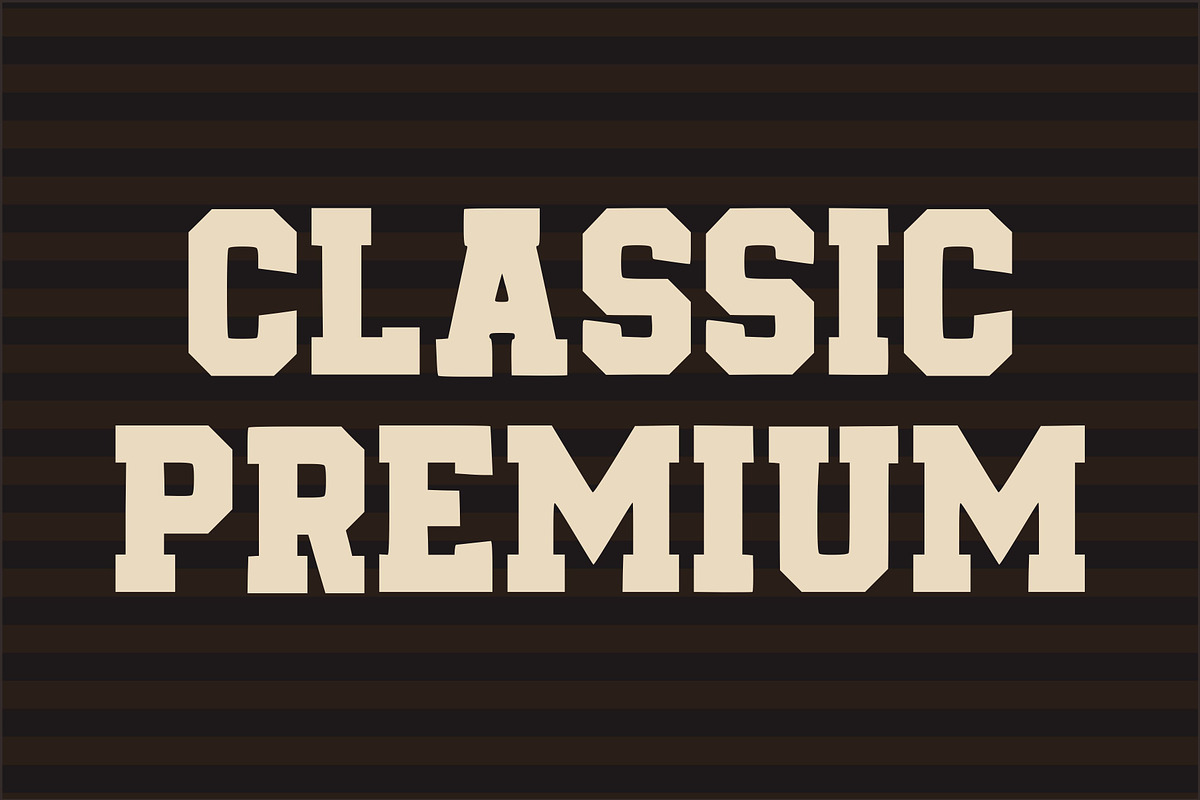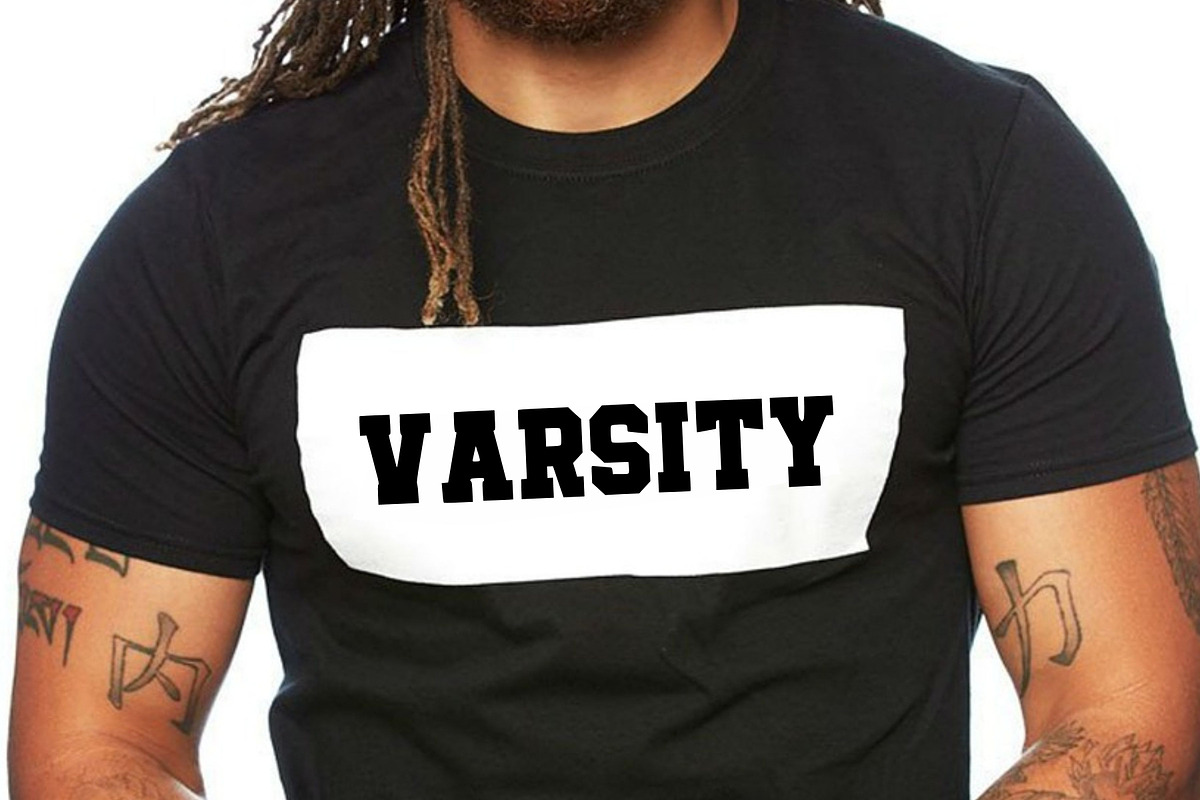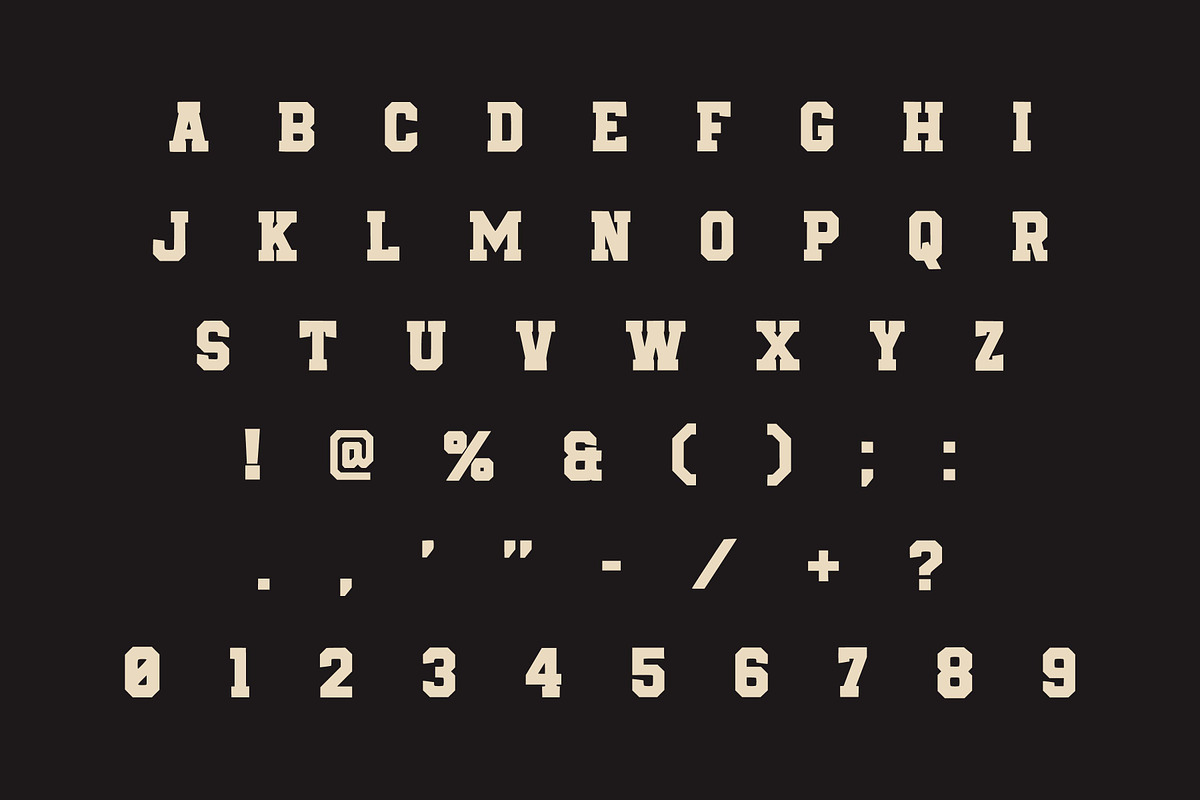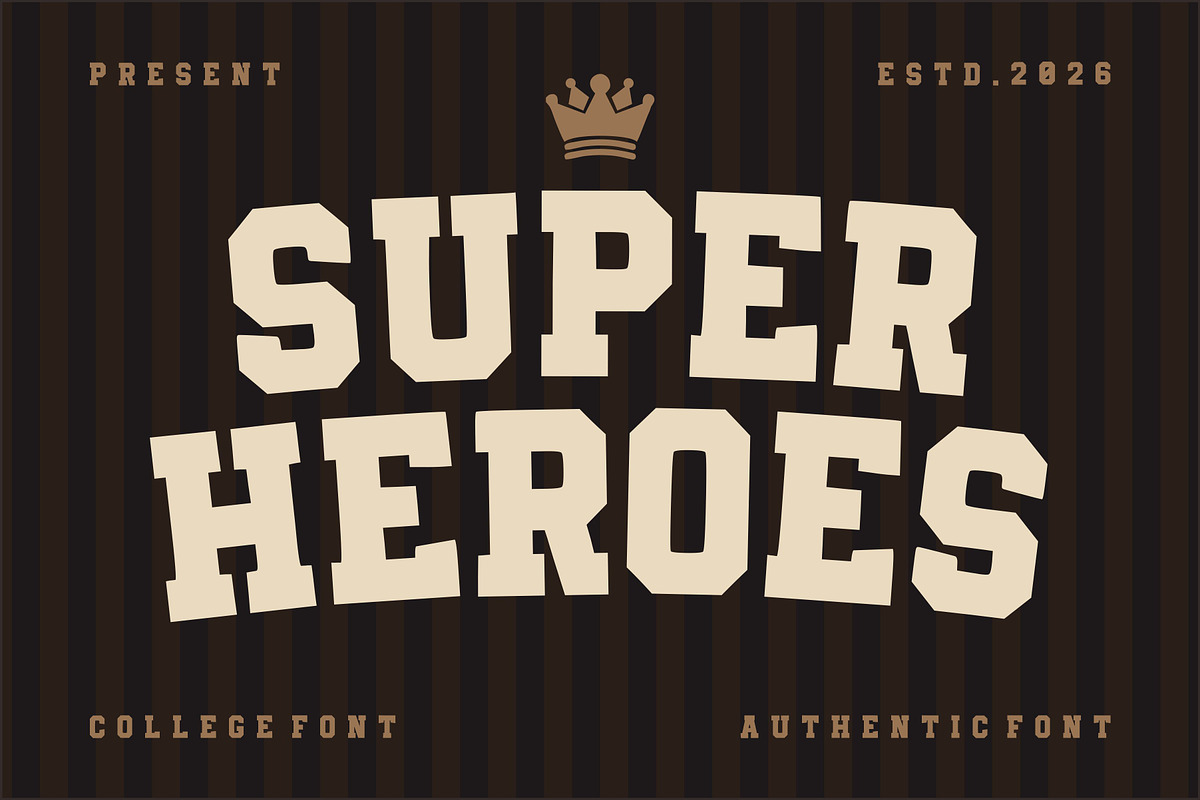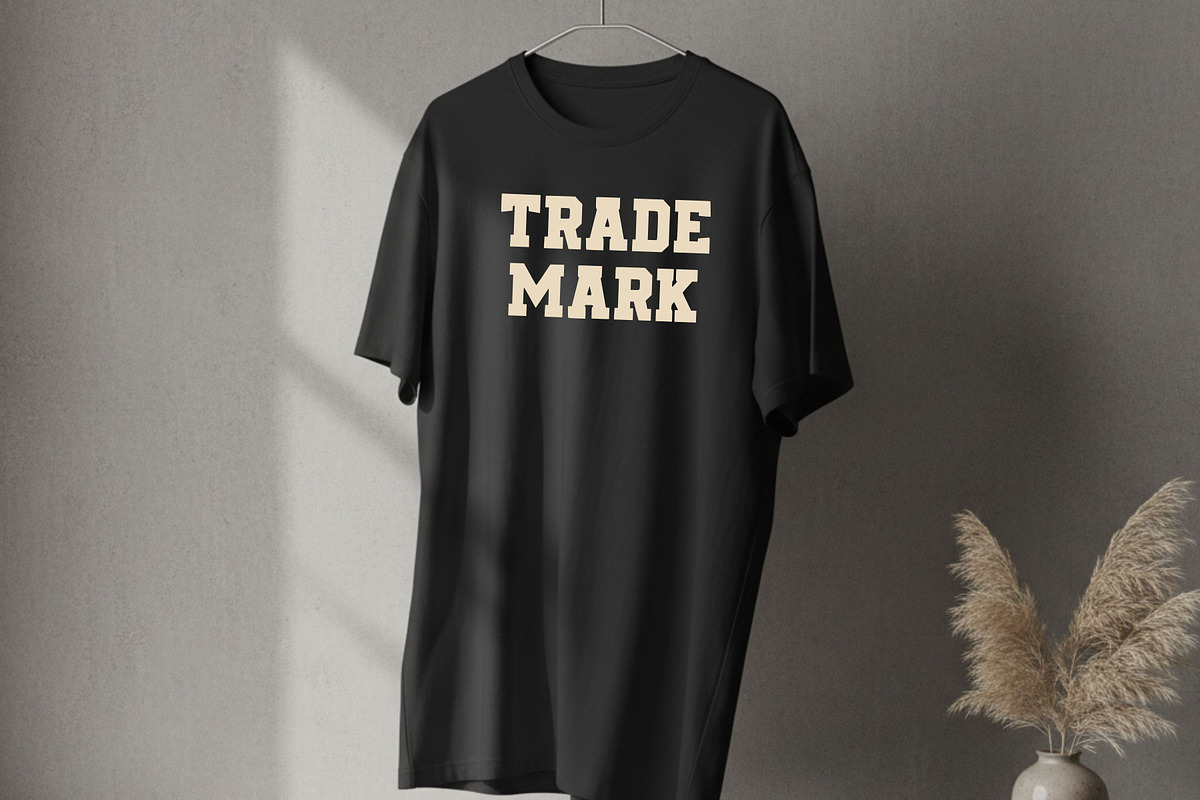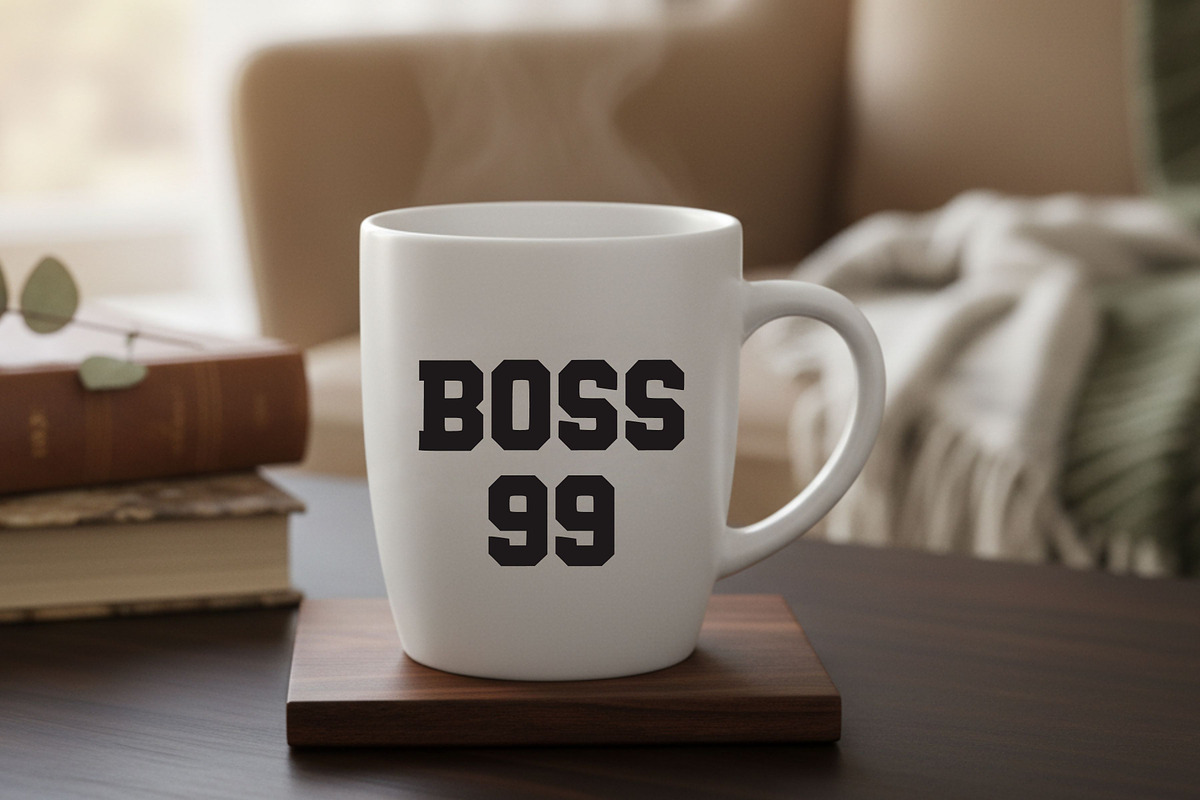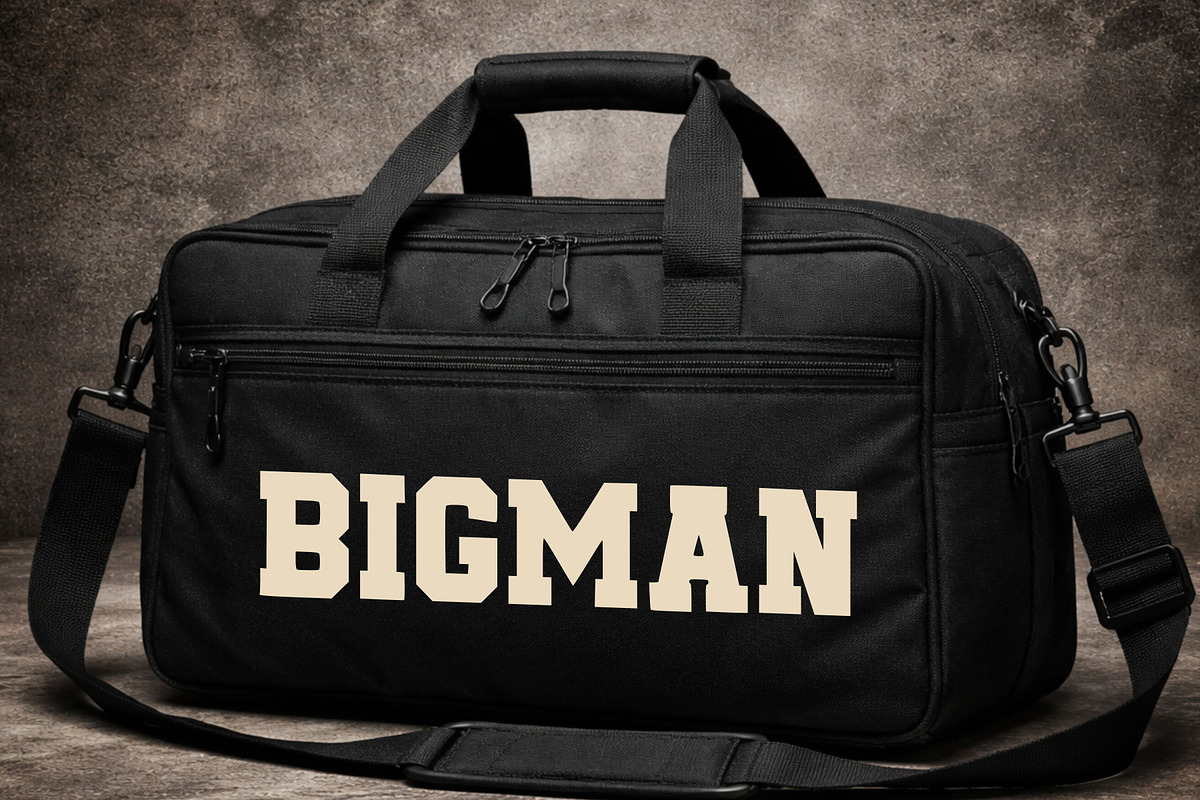
Super Heroes
Super Heroes is a bold and powerful display font inspired by classic collegiate and vintage sports lettering. With its strong slab serif structure, chunky proportions, and confident presence, this font is perfect for making impactful headlines and standout designs.
The retro athletic vibe combined with a heroic feel makes it ideal for branding, logos, posters, merchandise, and varsity-style designs. Whether you’re creating sports-themed graphics or bold typography projects, Super Heroes delivers strength, energy, and authenticity.